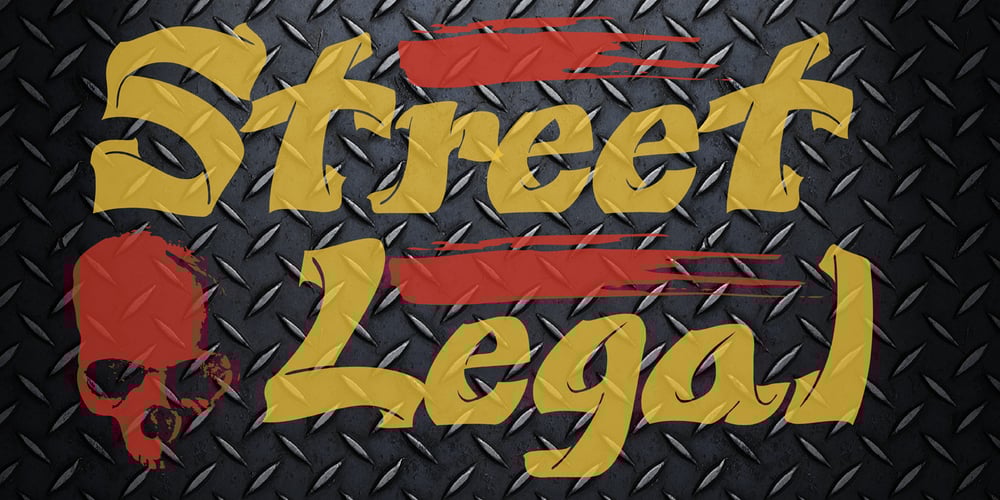
Street Legal Font Family was designed by Jose Robles and published by LetterBalm. Street Legal contains 1 styles and family package options. Hard core street scrawl, for tough graffiti urban hood, laid back and tough, lots of attitude and tons of muscle, for automotive, motorcycles, urban settings and back alleys. Gives your designs some serious five o’clock shadow.